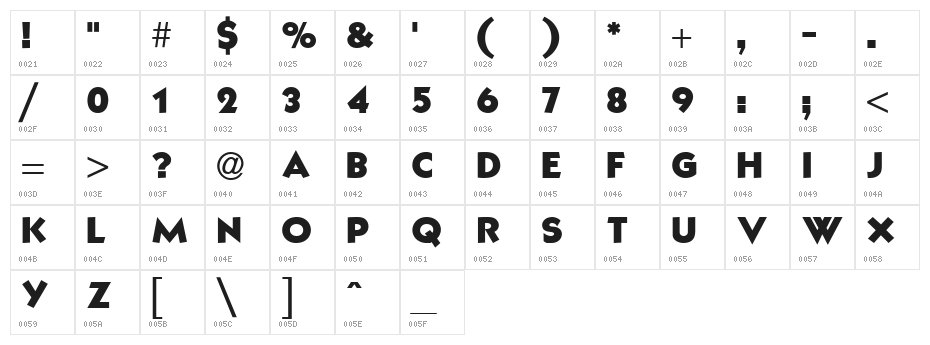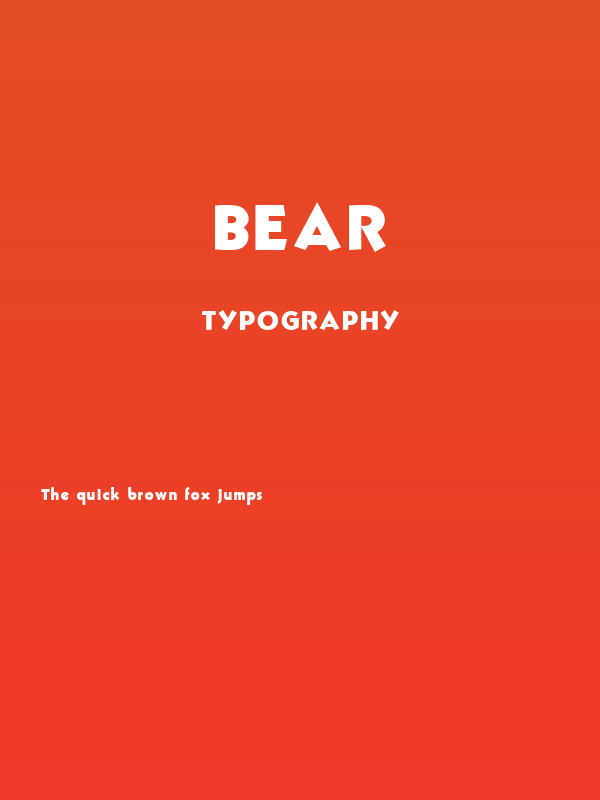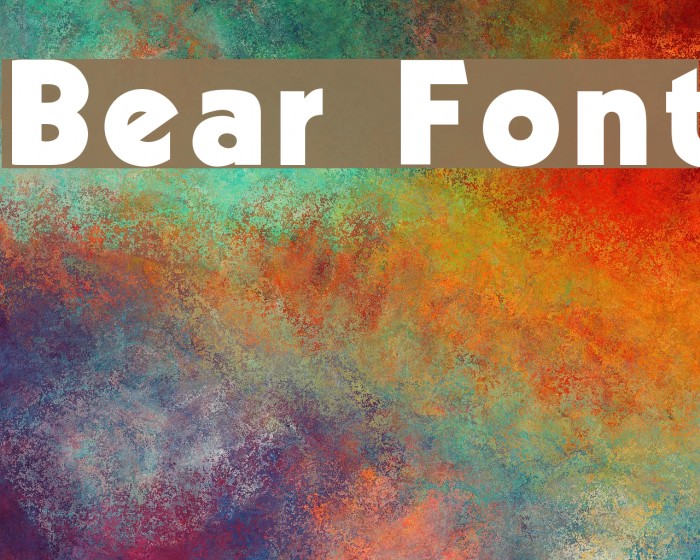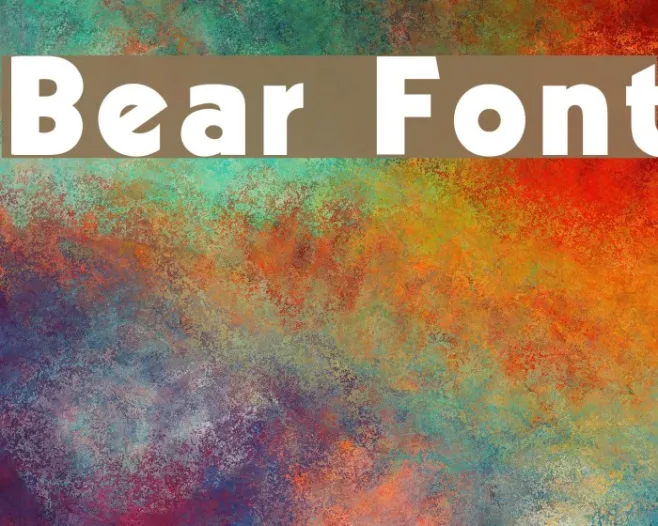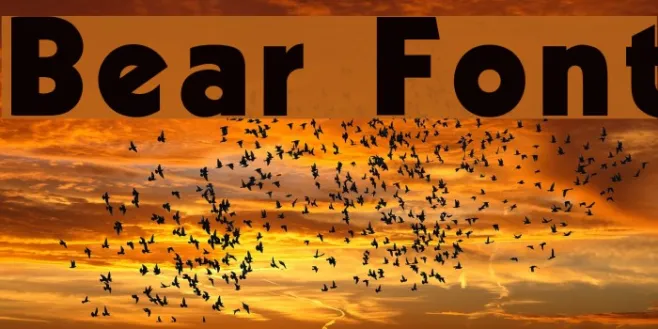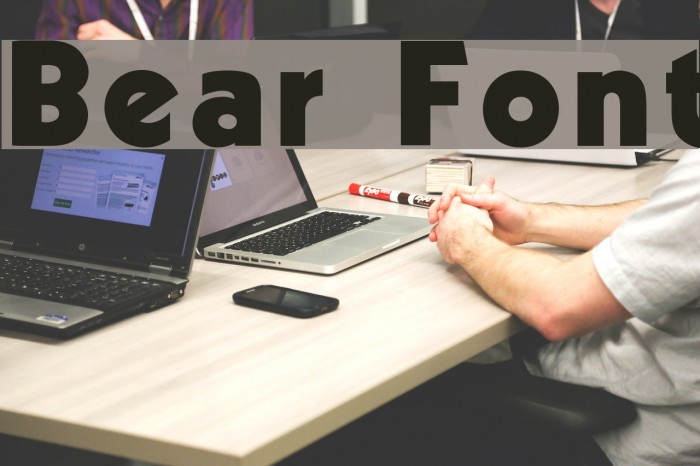
Bear Font
Bear Description
This font features bold, geometric letterforms with a strong presence. The characters are constructed with clean lines and sharp angles, giving it a modern and assertive look. The uppercase letters are particularly striking, with a uniform height and width that create a cohesive appearance. The lowercase letters maintain the same boldness, with rounded elements that add a touch of softness to the overall design. The numerals are equally bold and consistent, ensuring readability and impact. Special characters are designed to match the bold aesthetic, making this font versatile for various applications.